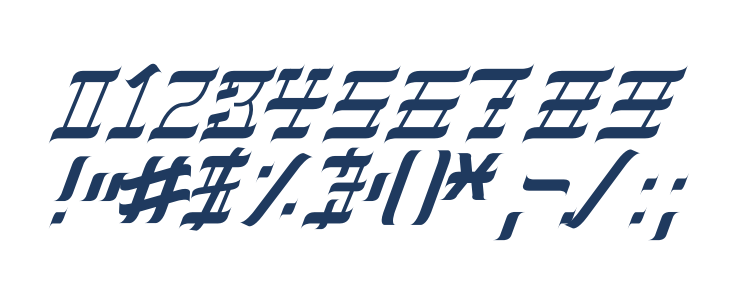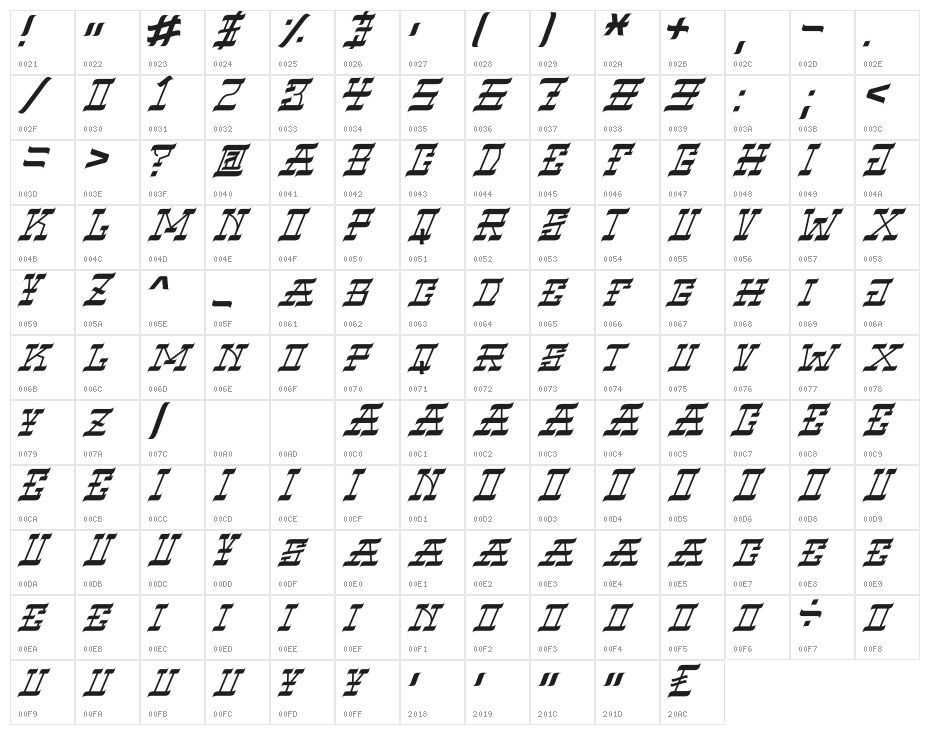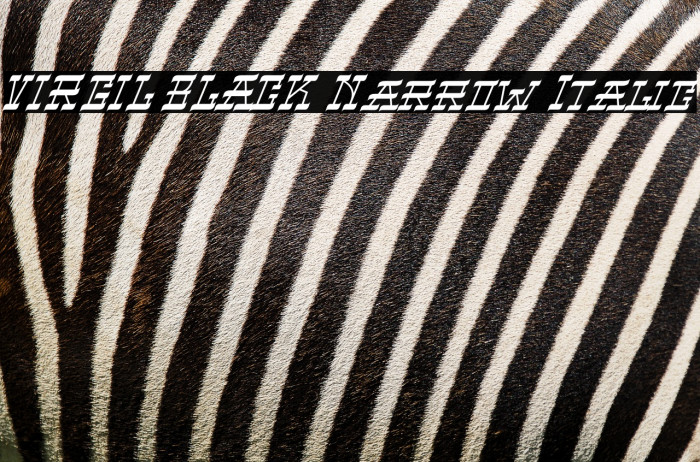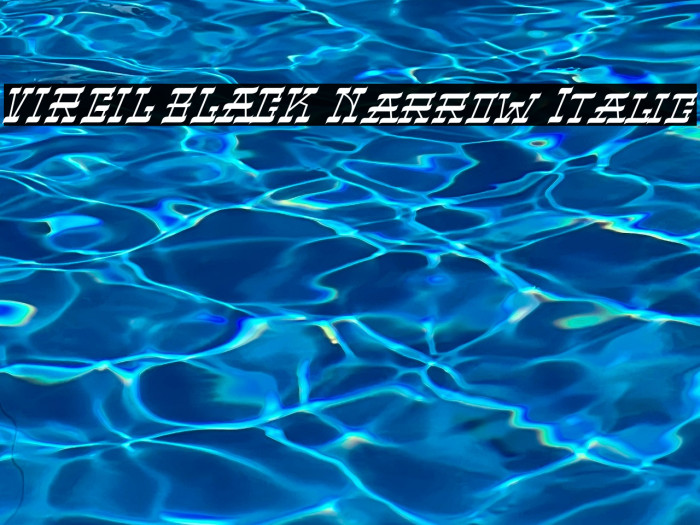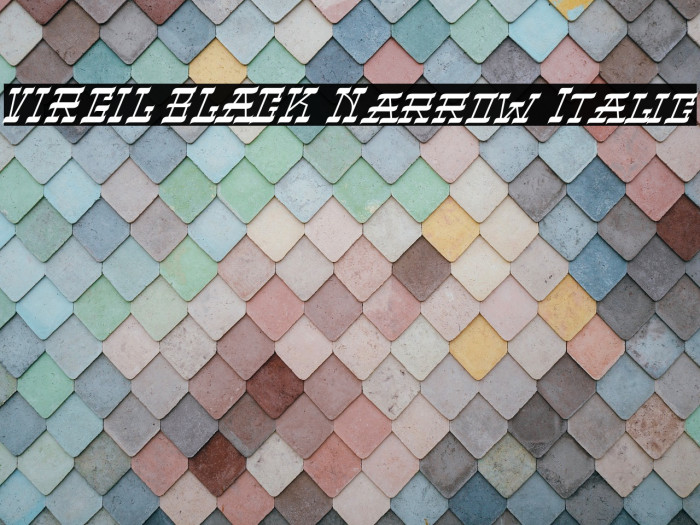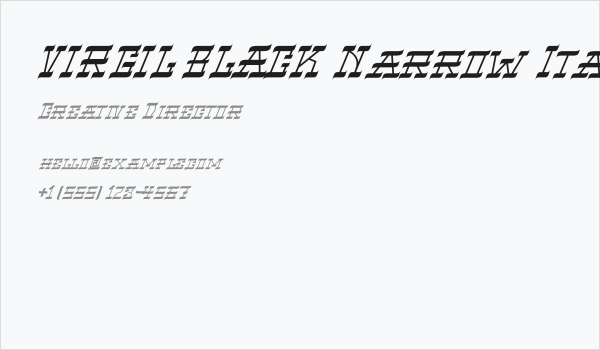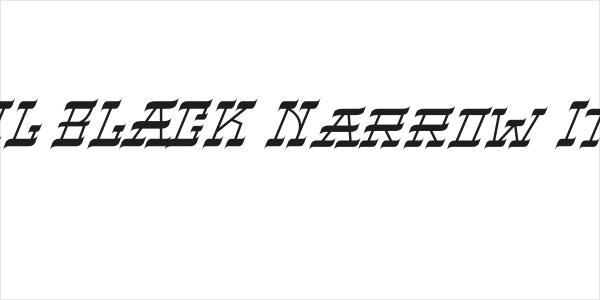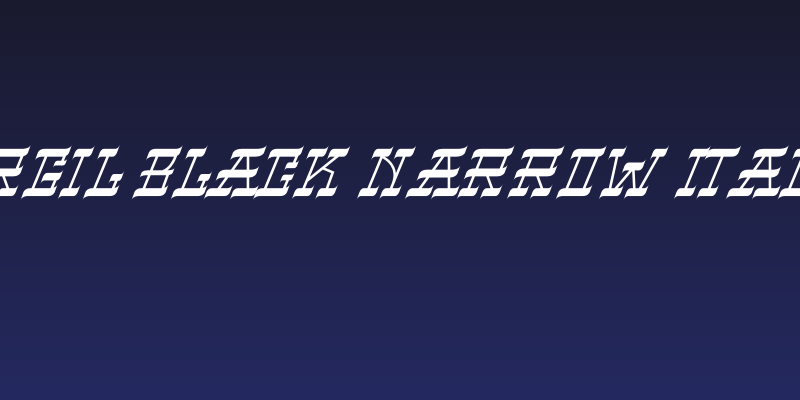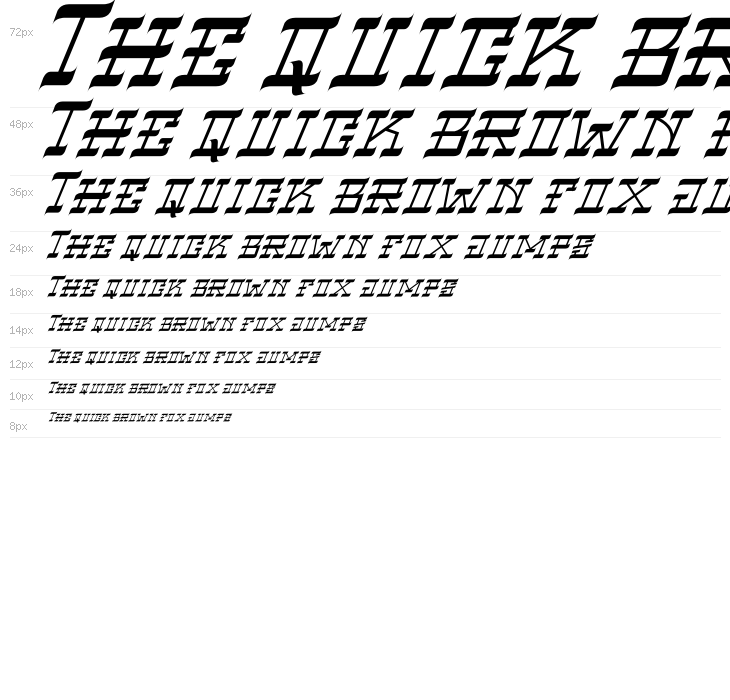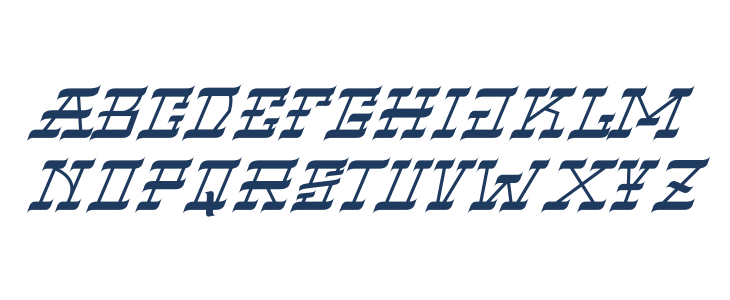
VIRGIL BLACK Narrow Italic Font
VIRGIL BLACK Narrow Italic Description
This font features a bold and dynamic style with a narrow, italicized form. The characters are sharply angled, giving a sense of movement and urgency. The strokes are thick, providing a strong visual impact, while the narrow width maintains a sleek and modern appearance. The italic slant adds a touch of elegance and sophistication, making it suitable for attention-grabbing headlines or titles. The overall design is cohesive, with consistent angles and proportions across all characters, including letters, numbers, and special symbols.
| Proposed Projects | Ideal for branding, posters, and headlines that require a modern and impactful look. |